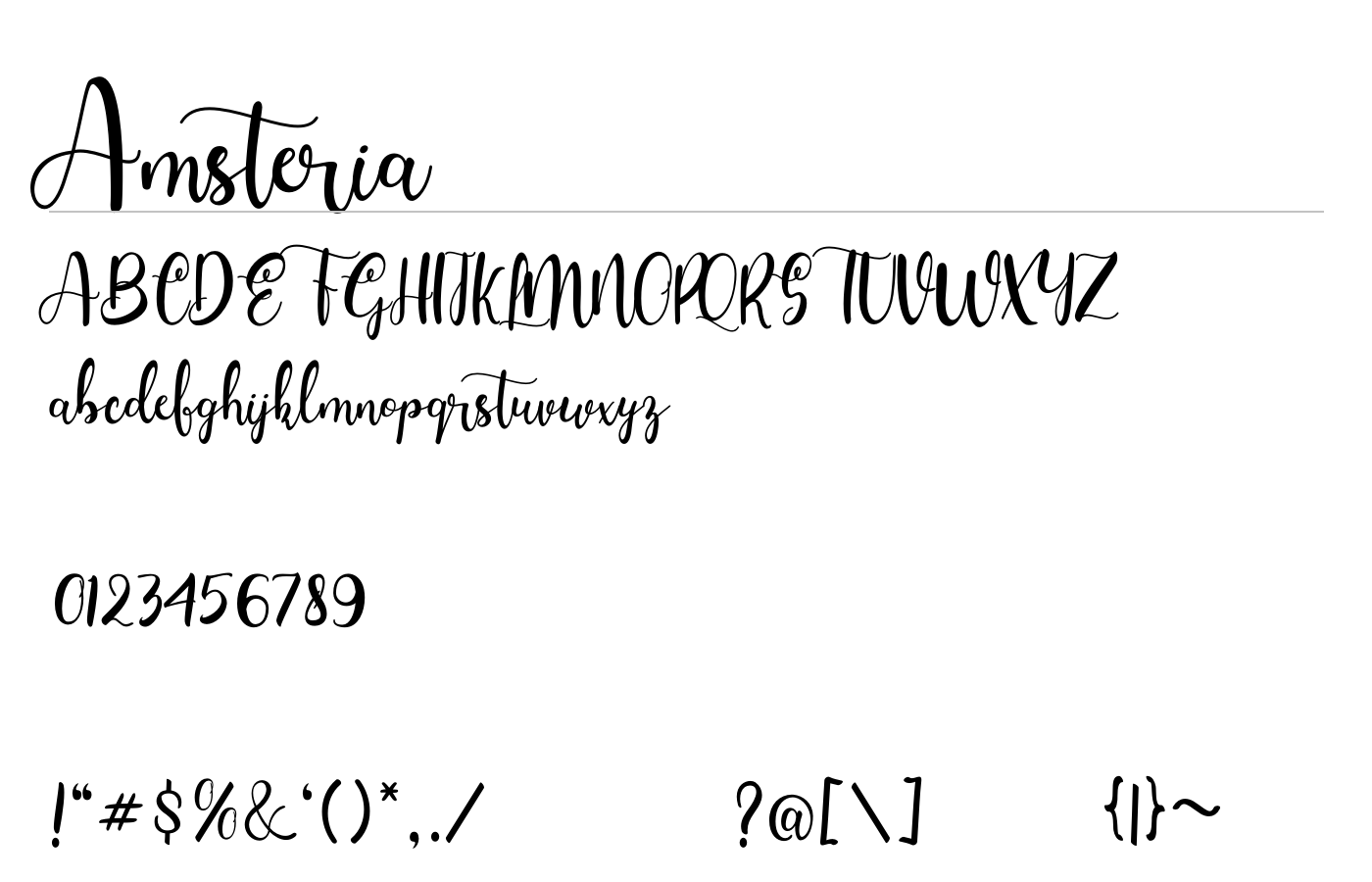
Amsteria is a playful and elegant script font with a hand-lettered feel, featuring tall, flowing letterforms and smooth, curving strokes. Its slender weight and delicate swashes give it a refined yet approachable personality, ideal for creative branding, invitations, and feminine design projects. This font works best in display sizes where its charming details and lively rhythm can shine.
Amsteria Font
About Amsteria Font
| Font family | Amsteria Font |